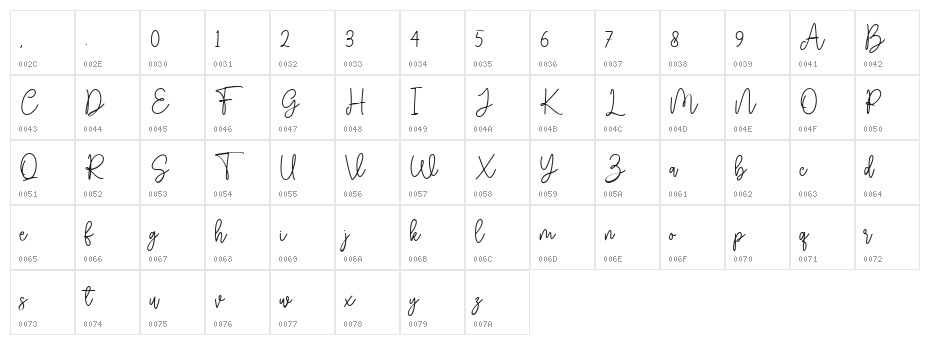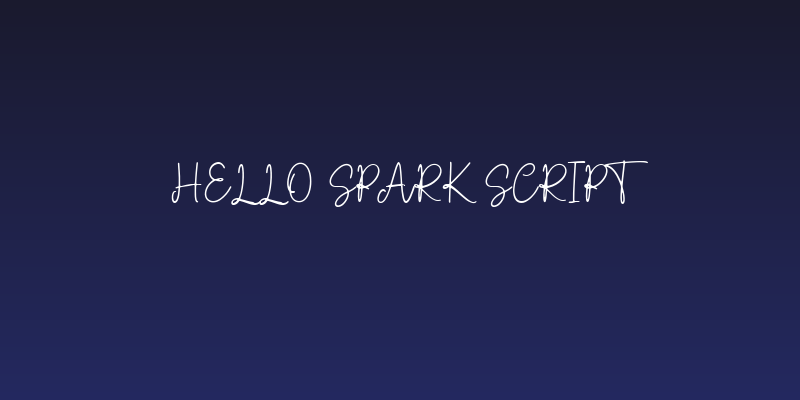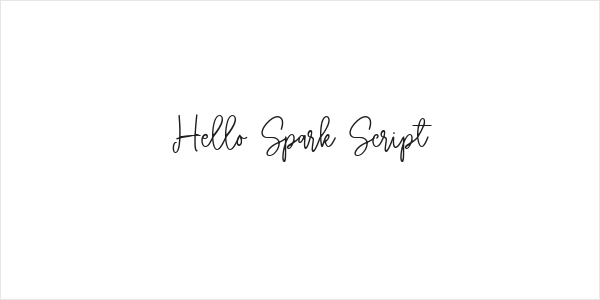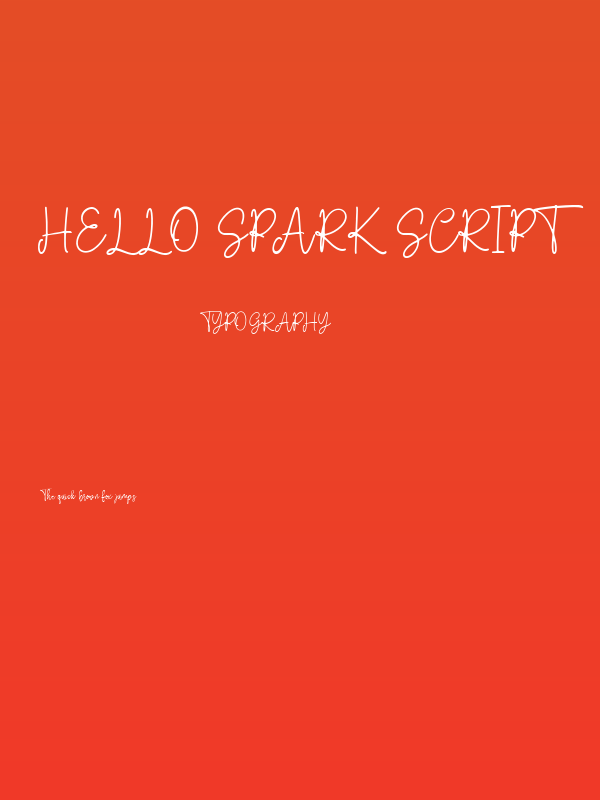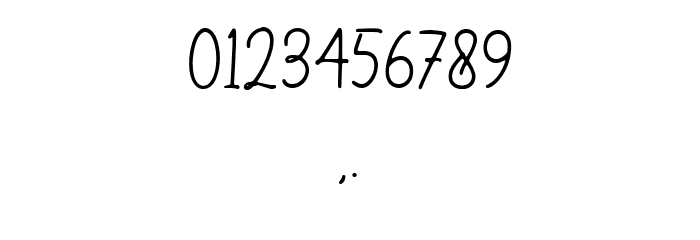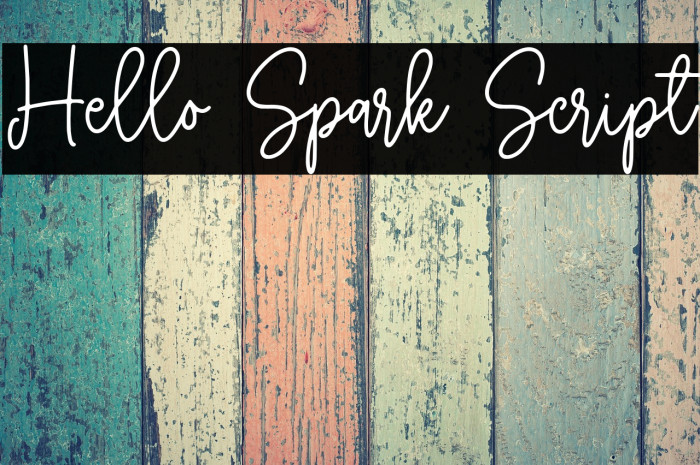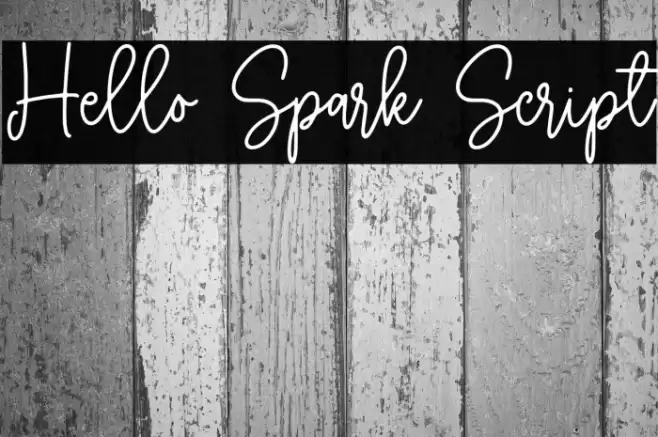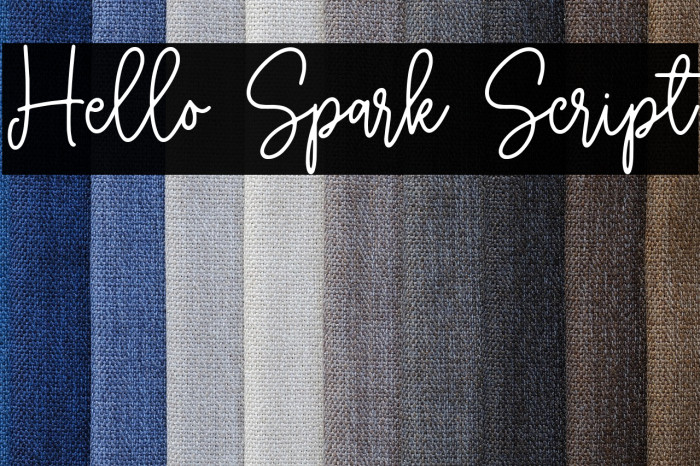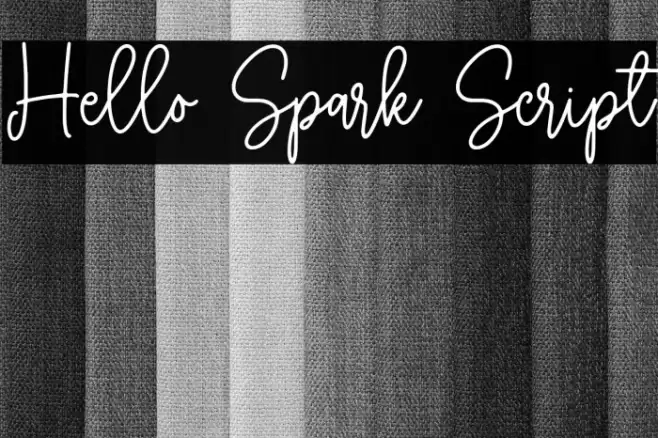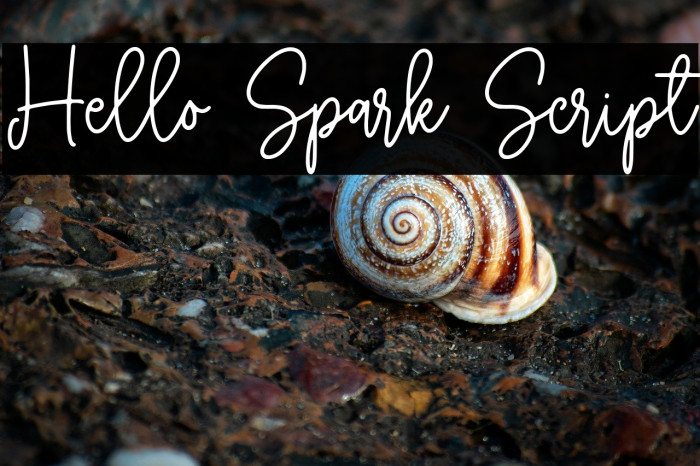
Hello Spark Script Font
| Anwendungsfall | Logos, Invitations, Personal Branding |
| Vorgeschlagene Projekte | Ideal for wedding invitations, greeting cards, personal branding, and creative projects that require a handwritten touch. |